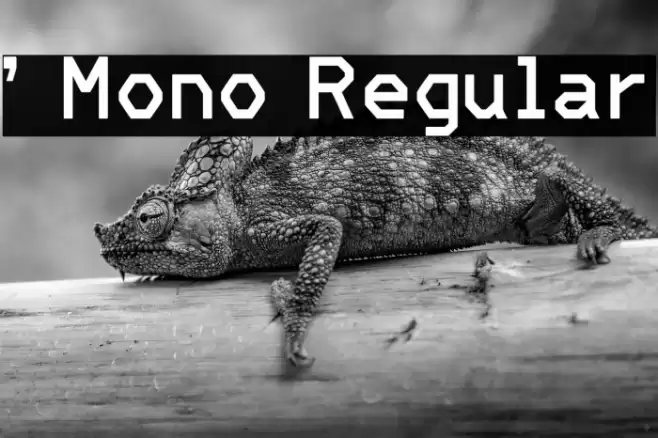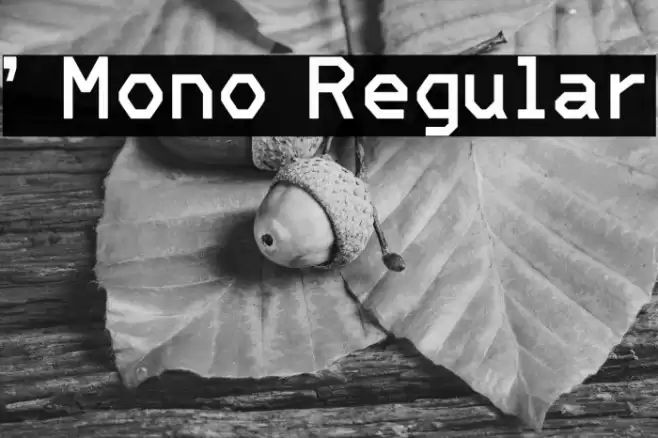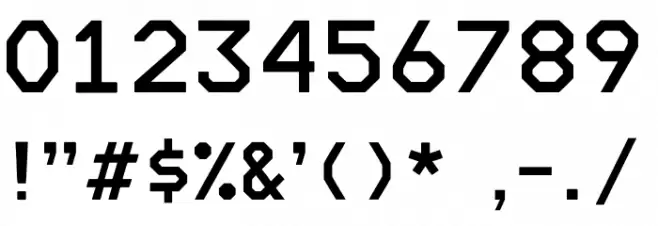
' Mono Regular Font
' Mono Regular Description
This font features a monospaced design with a geometric and technical appearance. Each character is uniformly spaced, providing a clean and organized look. The uppercase and lowercase letters maintain a consistent height, contributing to its structured style. The numerals and special characters are designed with a similar geometric precision, making them easily distinguishable. The font's angular edges and straight lines give it a modern and digital feel, suitable for coding or technical documents.
A monospaced font with a geometric and technical style from Basic fonts.
- Proposed Projects: Ideal for coding environments, technical documentation, and digital interfaces where clarity and uniformity are essential.
- Use Case: Coding, Technical documents, Digital interfaces